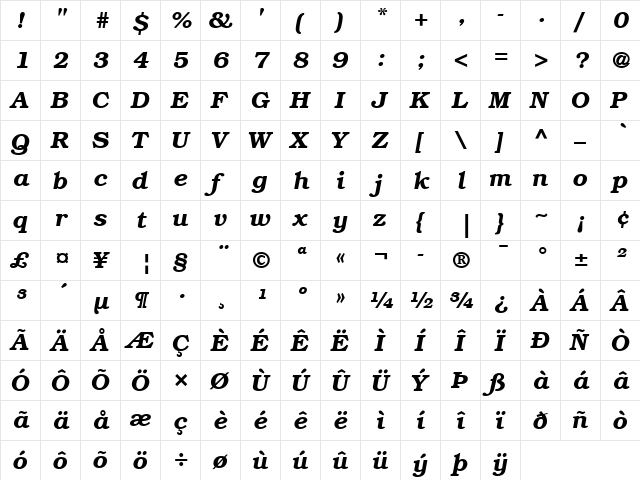
Bookman LT Light Bold Italic
Design Context for Bookman LT Light Typeface
Bookman LT Light takes a measured approach to typography — its balanced proportions and neutral character make it a reliable workhorse for both digital and print work. The slanted form adds forward momentum and visual energy. Its bold stroke weight gives it real presence on the page.
Pro Tip: Use Bookman LT Light for emphasis, pull quotes, and subheadings where its slanted energy can add rhythm to the layout.